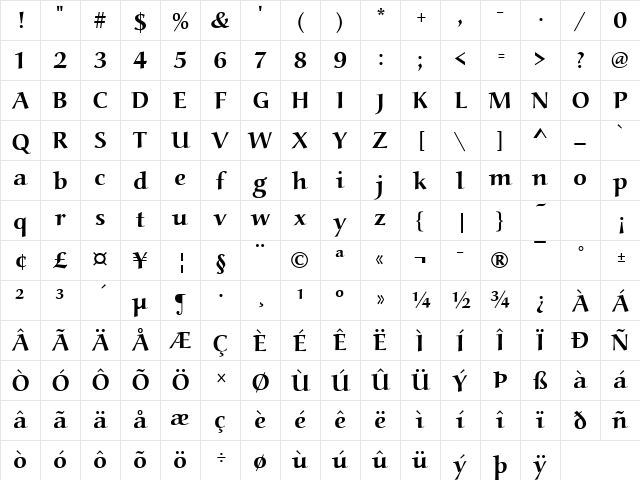
URWAlcuinT Bold
URWAlcuinT Family
URWAlcuinT Bold
Design Context for URWAlcuinT
URWAlcuinT is a composed and adaptable typeface that performs quietly and consistently across a wide range of design contexts. Its bold stroke weight gives it real presence on the page.